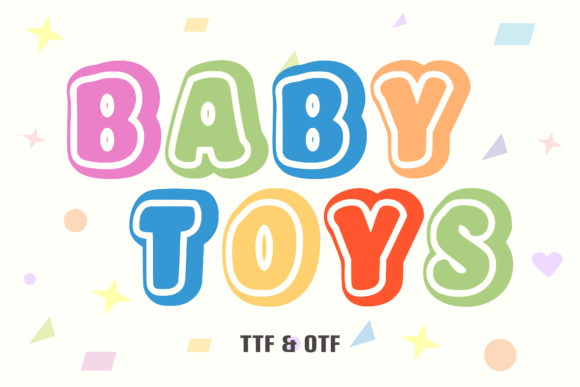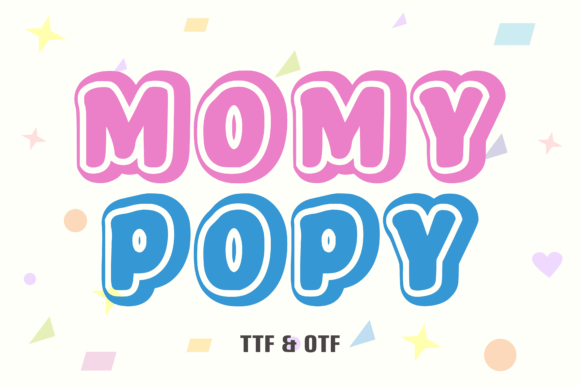
Introduction to Abc Font
ABC is a children’s font that brings fun and excitement to child-friendly designs.
With its cheerful style and appearance, this font offers flexibility for a variety of creative endeavors Let this font add a pop of color and imagination to your designs, each character is suitable for everything from posters, stickers, comics, and more.